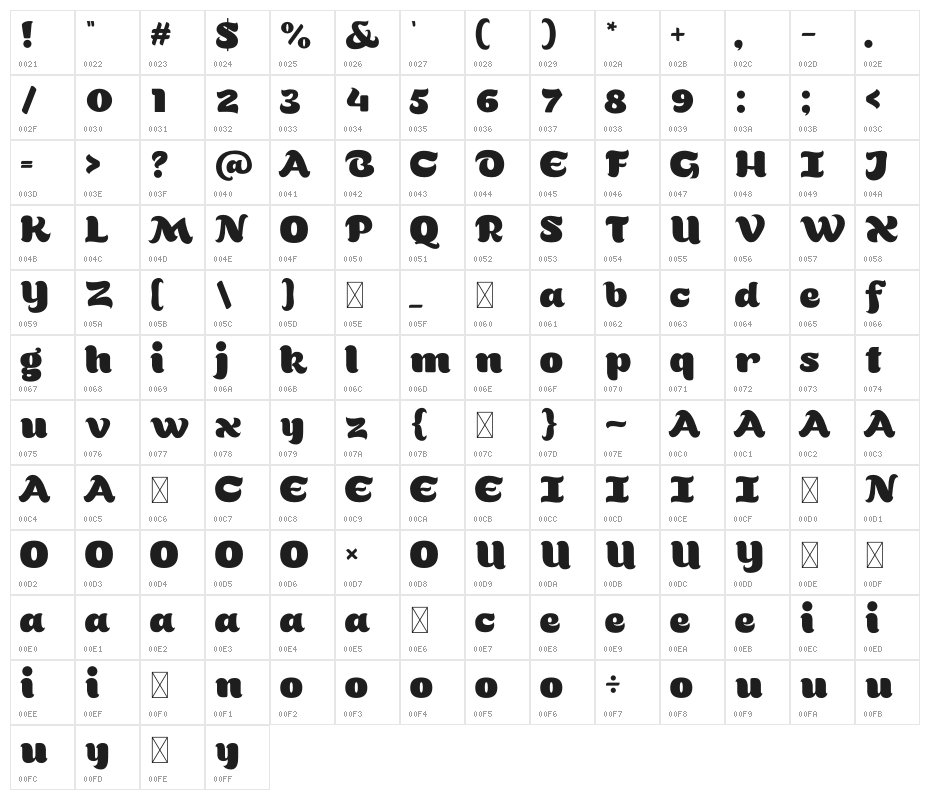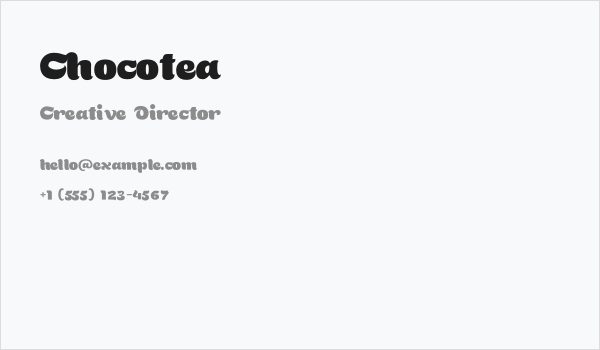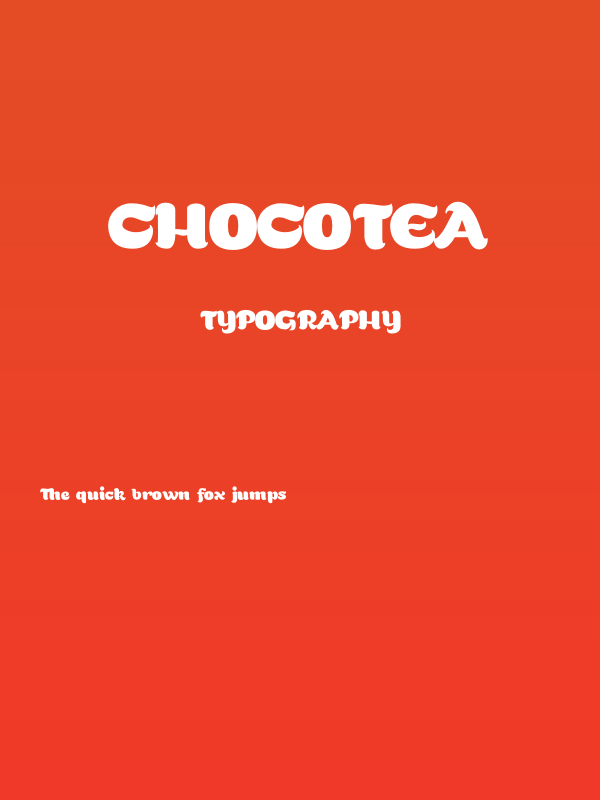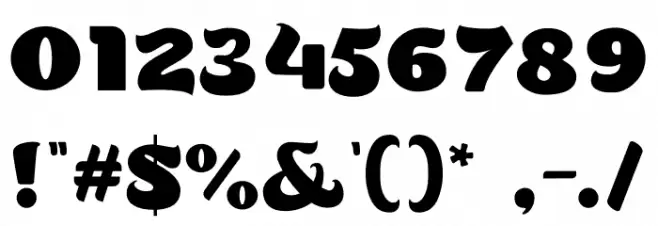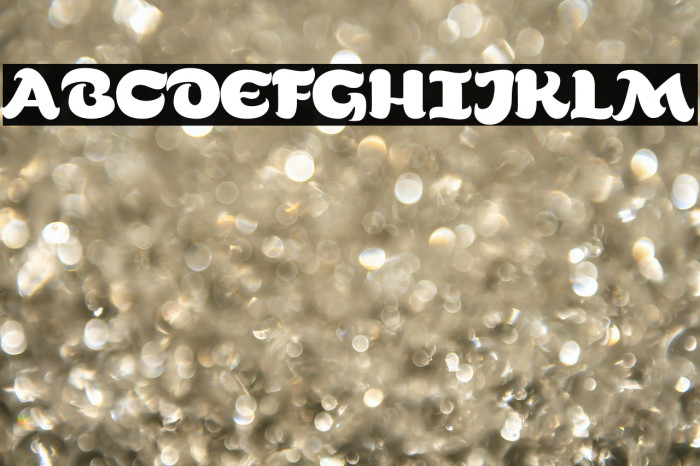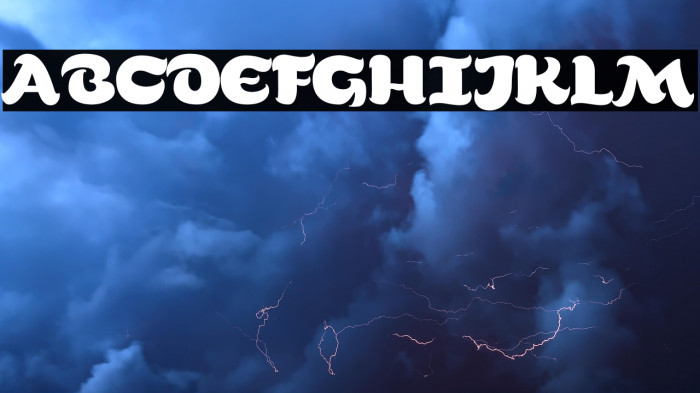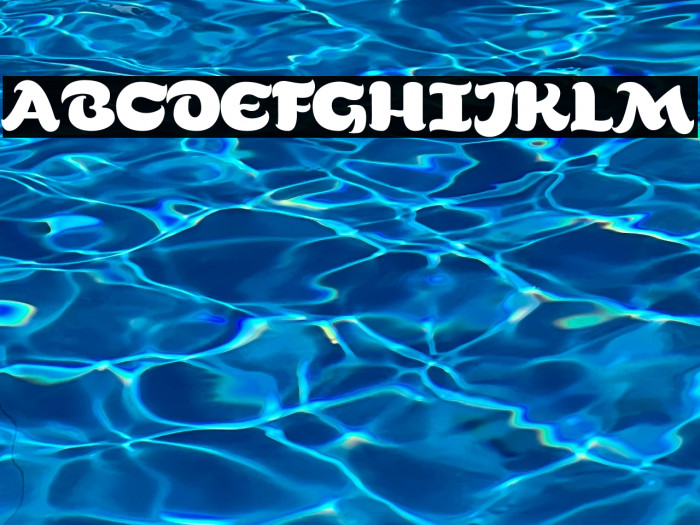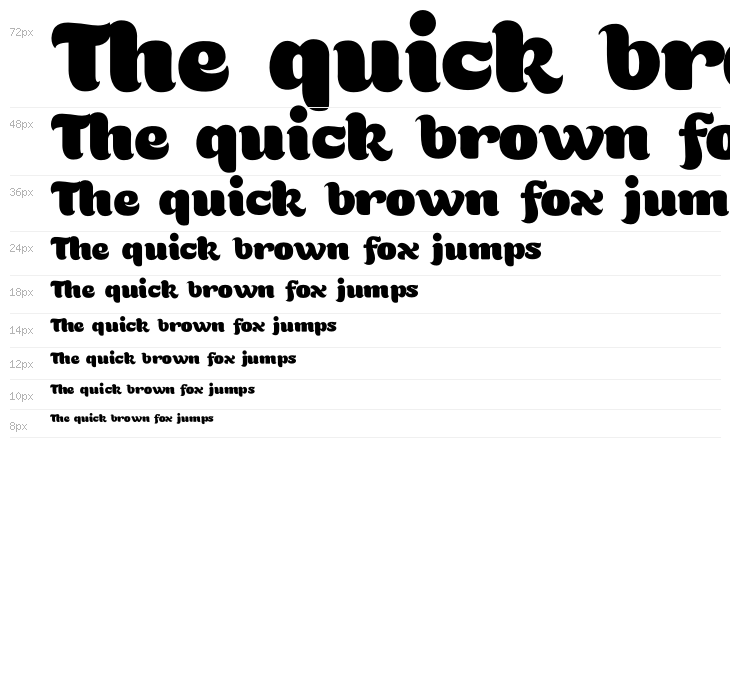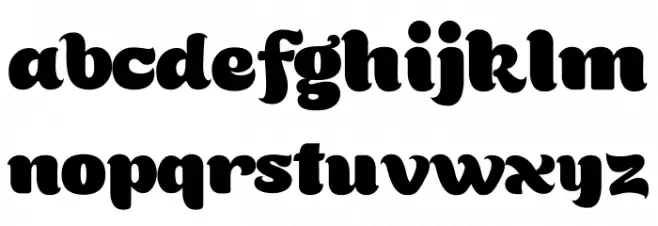
Chocotea Font
Chocotea Description
This font features a bold and playful style with thick, rounded strokes that give it a friendly and approachable appearance. The characters are well-defined with a slight whimsical flair, making them stand out in any design. The uppercase and lowercase letters maintain a consistent weight, contributing to a cohesive look. The numbers and special characters are equally bold, ensuring readability and visual impact. This font's unique style is perfect for projects that require a touch of fun and creativity.
| Overall Style | Playful |
| Proposed Projects | Ideal for children's books, playful branding, posters, and creative packaging. |